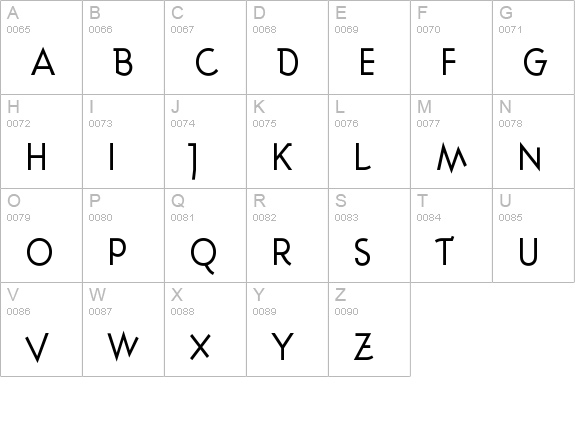
Instanter-Light is a refined, elegant variant in the Instanter typeface family \xE2\x80\x94 well suited to elegant body text, refined sub-headings, and luxury branding.
Introducing Instanter-Light, a captivating and versatile font that will add a touch of elegance to any project. This exquisite font is the perfect balance between timeless sophistication and modern simplicity. With its clean lines and delicate curves, Instanter-Light is sure to make a lasting impression. One of the most remarkable aspects of Instanter-Light is that it is available for free. Yes, you heard it right! This stunning font can be freely downloaded from FontsMarket.com, allowing you to effortlessly enhance your designs without having to spend a dime. The beauty of Instanter-Light lies not only in its aesthetic appeal but also in its versatility. Whether you are working on a logo, a website, a poster, or any other creative endeavor, this font will effortlessly adapt to your vision, making your message shine with undeniable charm. With its legible and graceful characters, Instanter-Light offers a delightful reading experience, making it ideal for a wide range of projects. Whether you are designing a wedding invitation, a branding campaign, or a magazine layout, this font will add a touch of sophistication that will leave a lasting impression on your audience. Instanter-Light is a font that transcends trends and stands the test of time. It effortlessly combines classic elegance with contemporary flair, making it a valuable asset in any designer's toolkit. So why wait? Head over to FontsMarket.com and download Instanter-Light for free today and unlock the endless possibilities that this remarkable font has to offer.